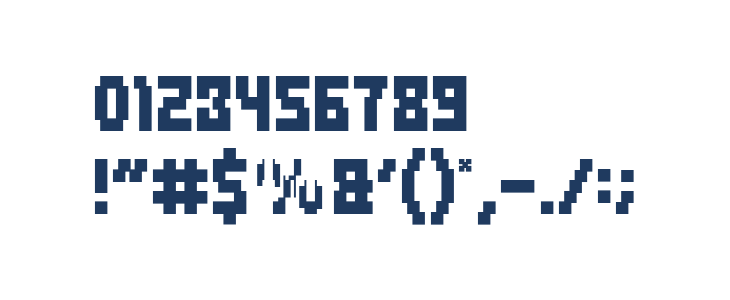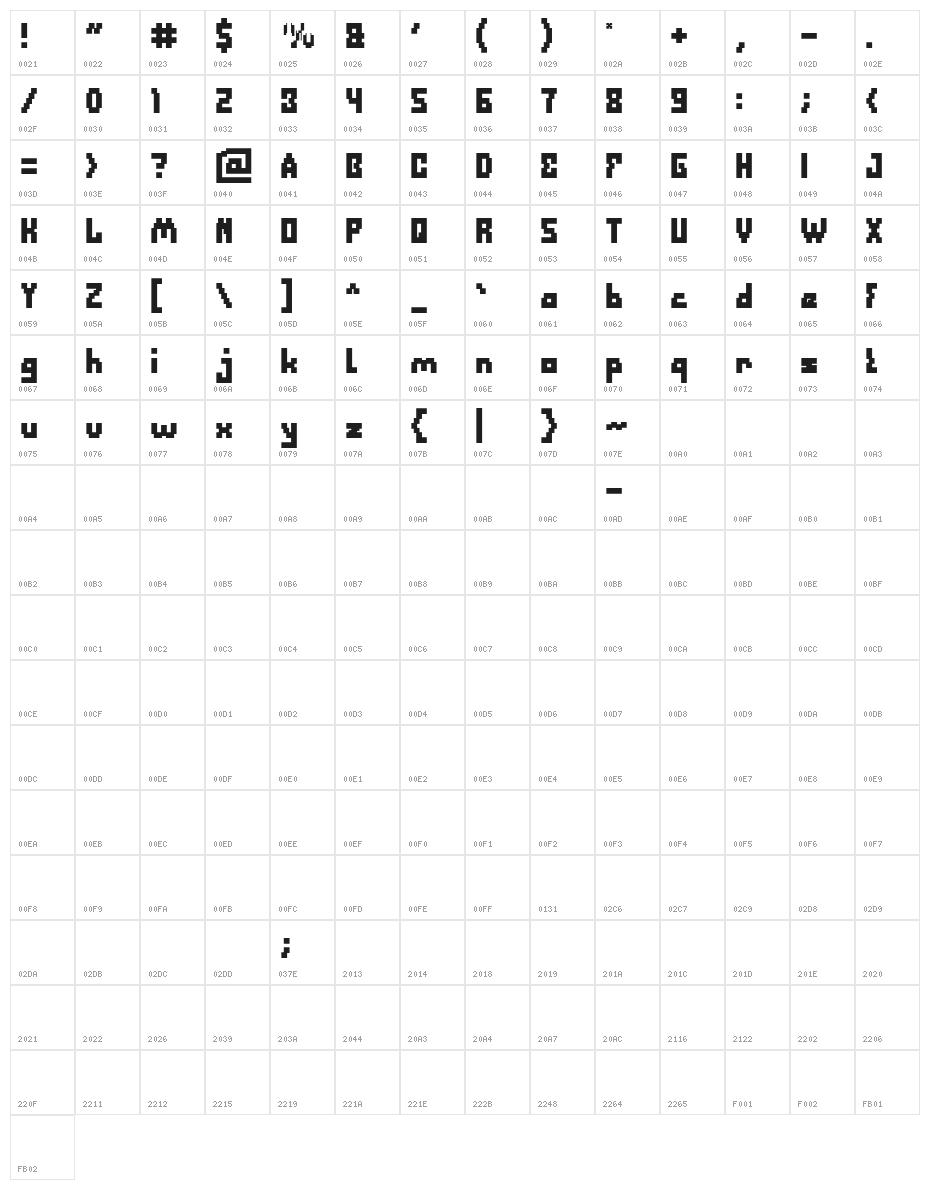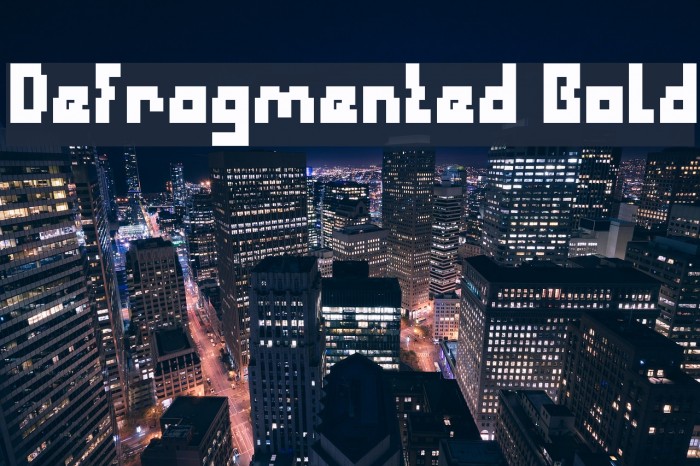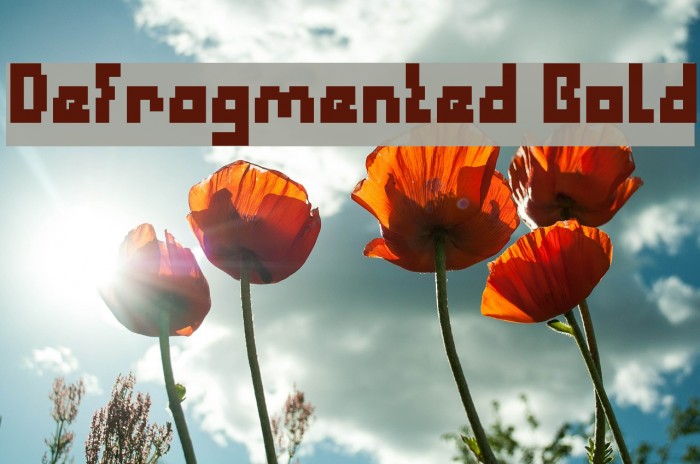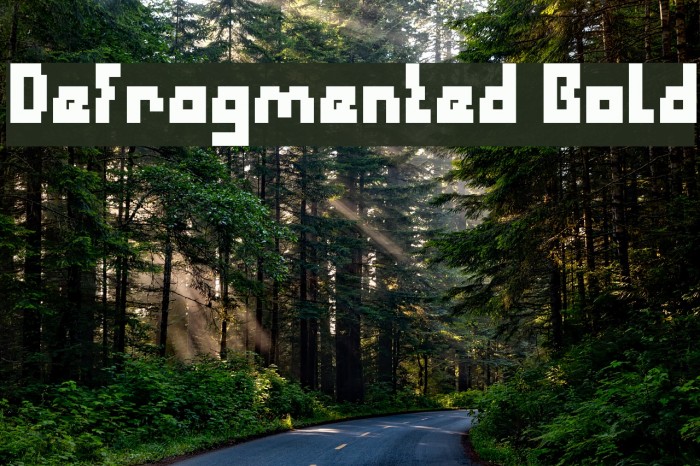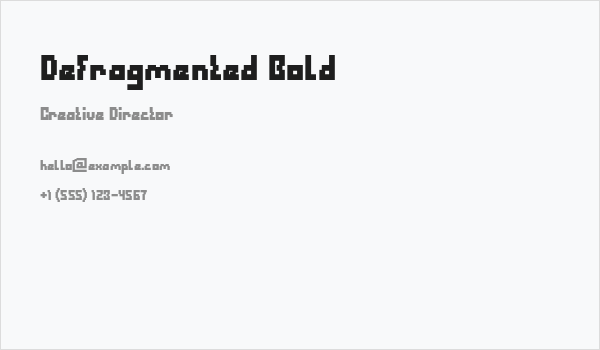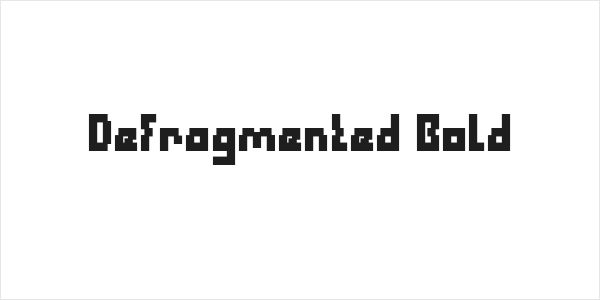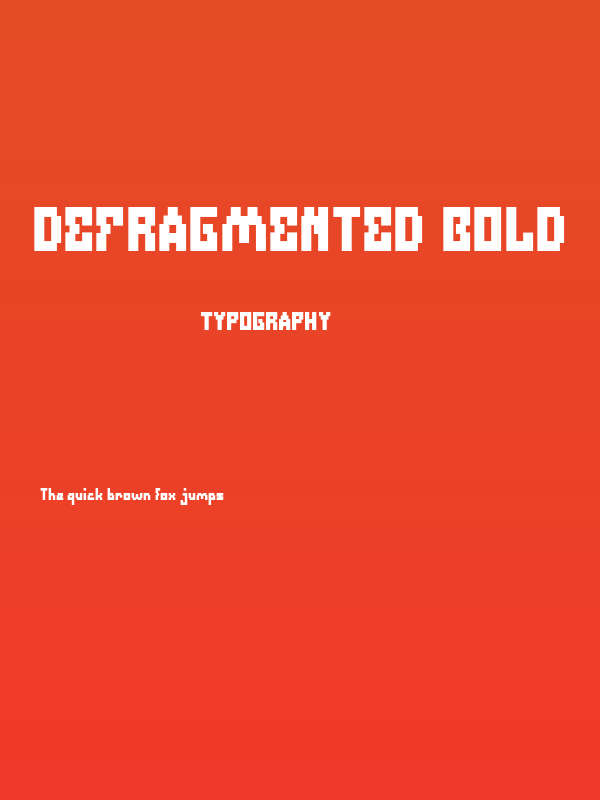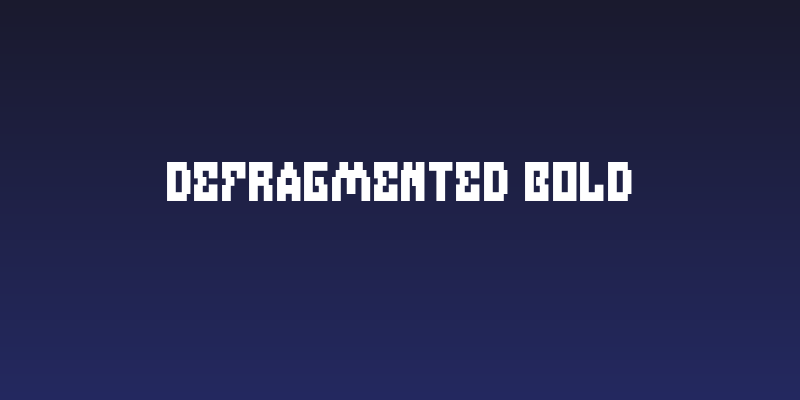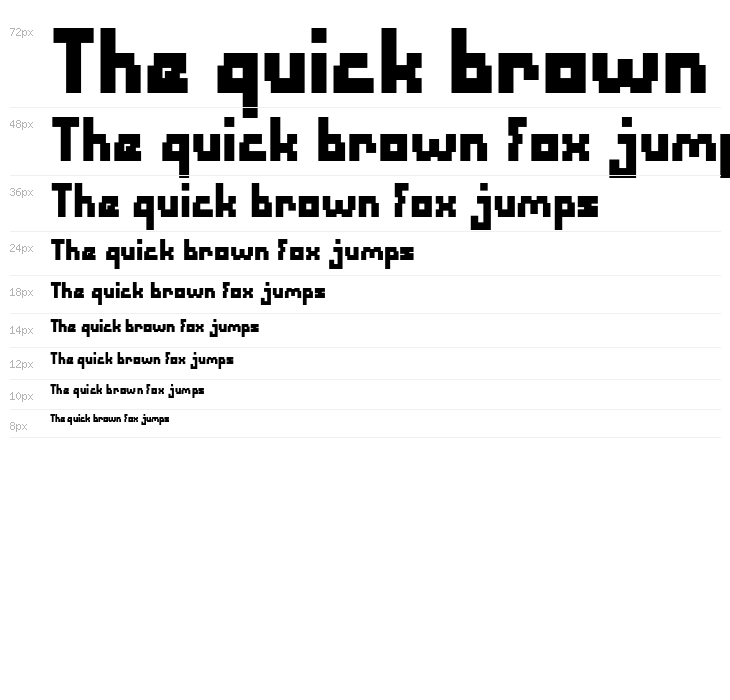
Defragmented Bold Font
Defragmented Bold Description
This font features a bold, pixelated design reminiscent of early digital displays and retro video games. Its blocky, geometric shapes give it a distinct, tech-inspired look. The characters are uniformly wide, with consistent stroke thickness, creating a cohesive and structured appearance. Despite its boldness, the font maintains a clear and legible form, making it suitable for various digital and print applications. The uppercase and lowercase letters share a similar height, enhancing its uniformity. The numerals and special characters are crafted to match the overall aesthetic, ensuring visual harmony across all elements.
| Overall Style | Retro, Digital |
| Use Case | Headlines, Logos, Digital displays |
| Proposed Projects | Ideal for video game graphics, tech-themed posters, and digital art projects. |